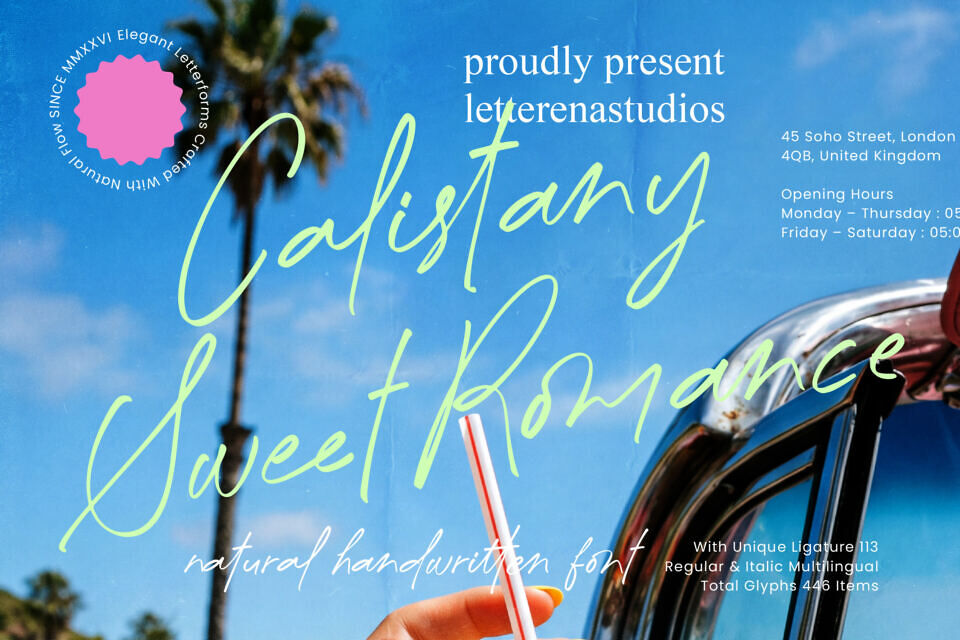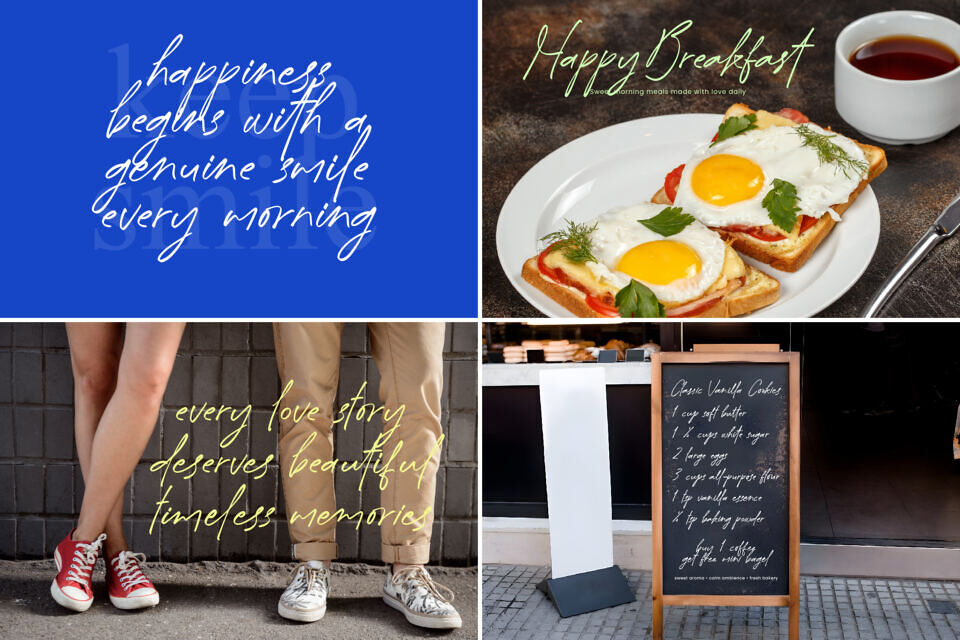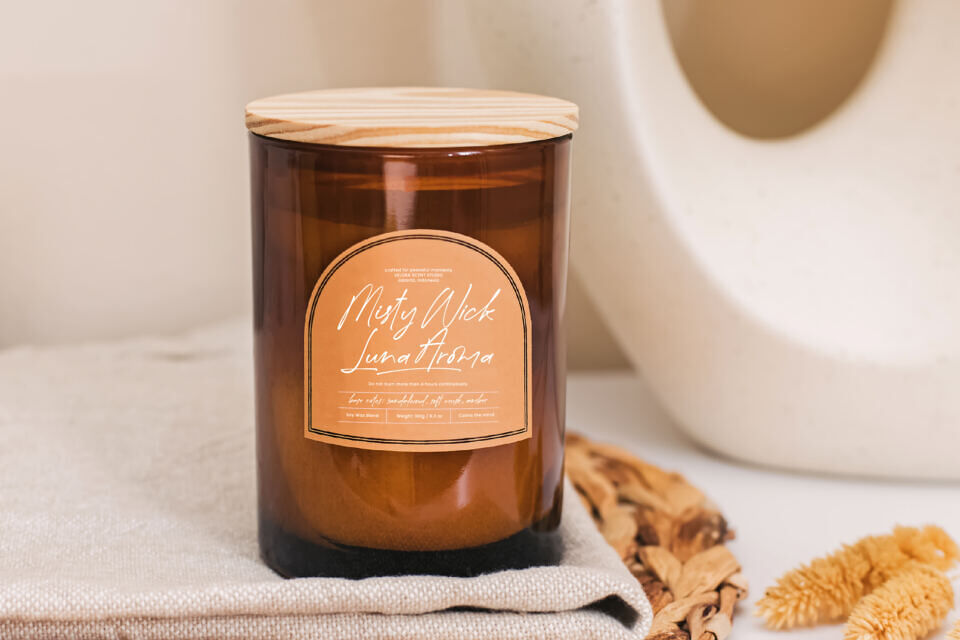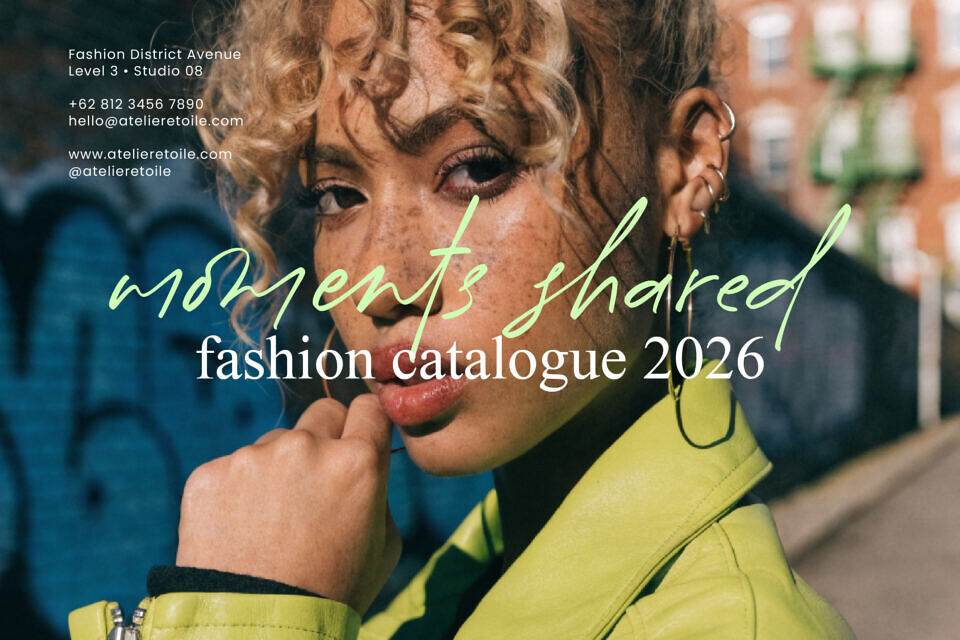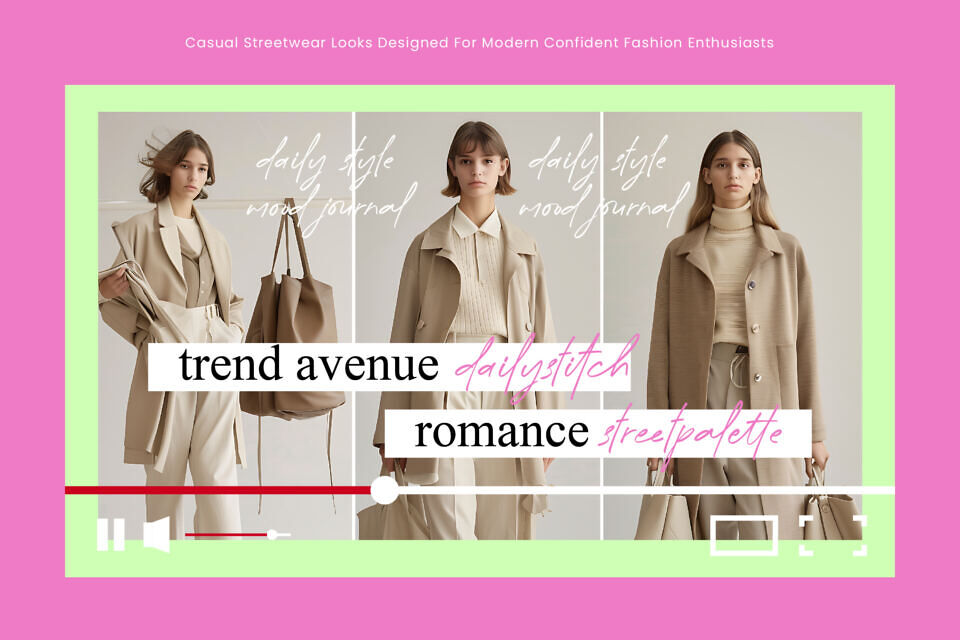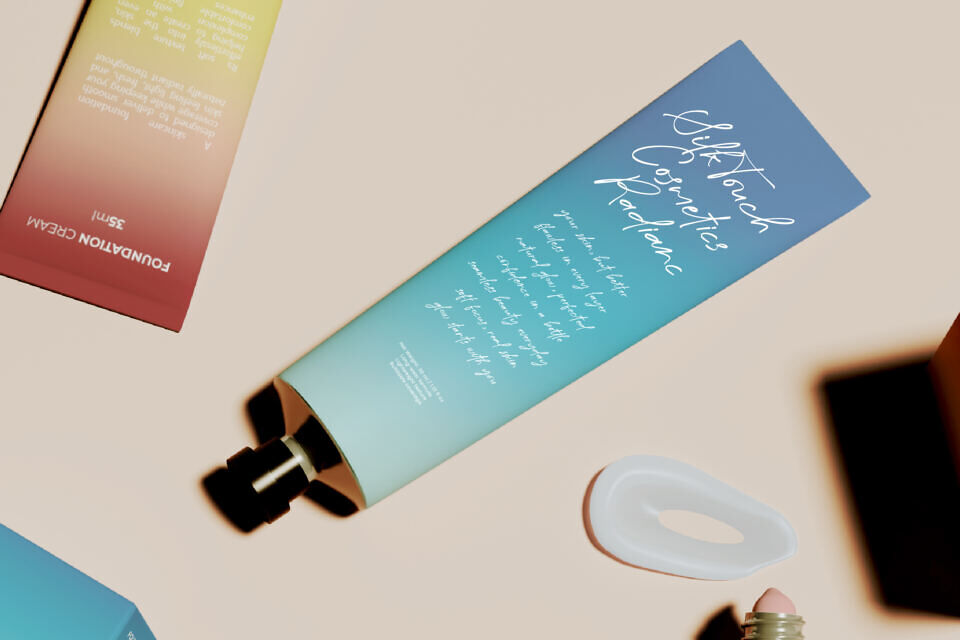
Calistany Sweet Romance Font
Add a touch of sophistication to your designs with a beautifully crafted font that combines elegance and personality. Its flowing letters and natural rhythm evoke a sense of refinement, making it perfect for luxury branding, wedding stationery, and high-end packaging.
With extensive multilingual support and numerous ligatures, this versatile font is ideal for international projects and custom designs, bringing a unique edge to your brand identity.